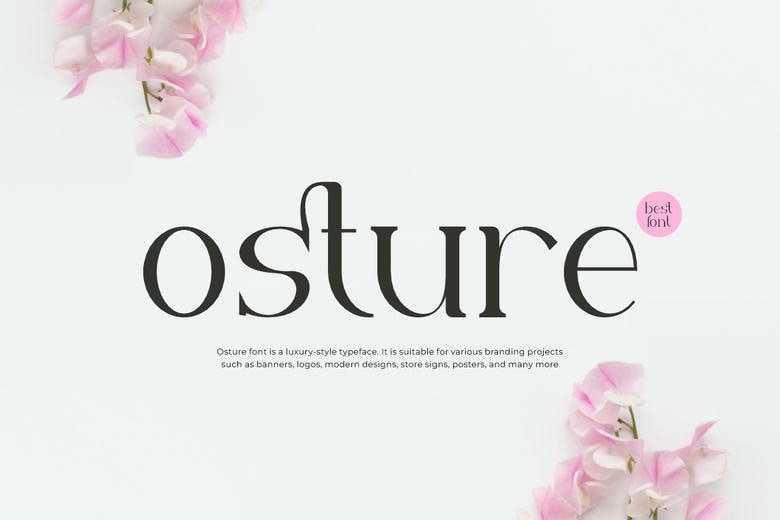
Osture Font
Osture Font is a serif and genuine display typeface. It is ideal to use on different branding efforts like logos, sports designs, and more. The font is stunning in a large variety of applications.
Osture Serif Font